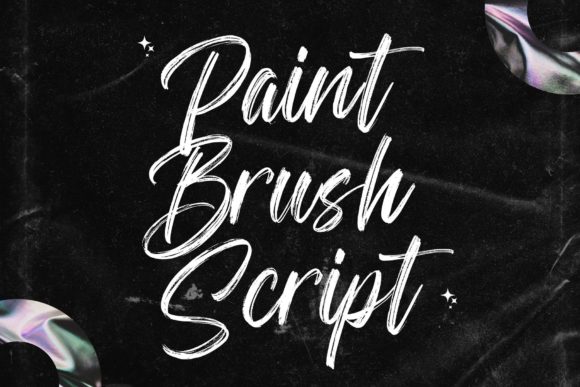
About Paint Brush Script Font
Paint Brush Script is a natural and modern calligraphy font.
It is perfect for any branding project such as logos, t-shirt printing, creative products, and more. It will look extraordinary in a variety of contexts.